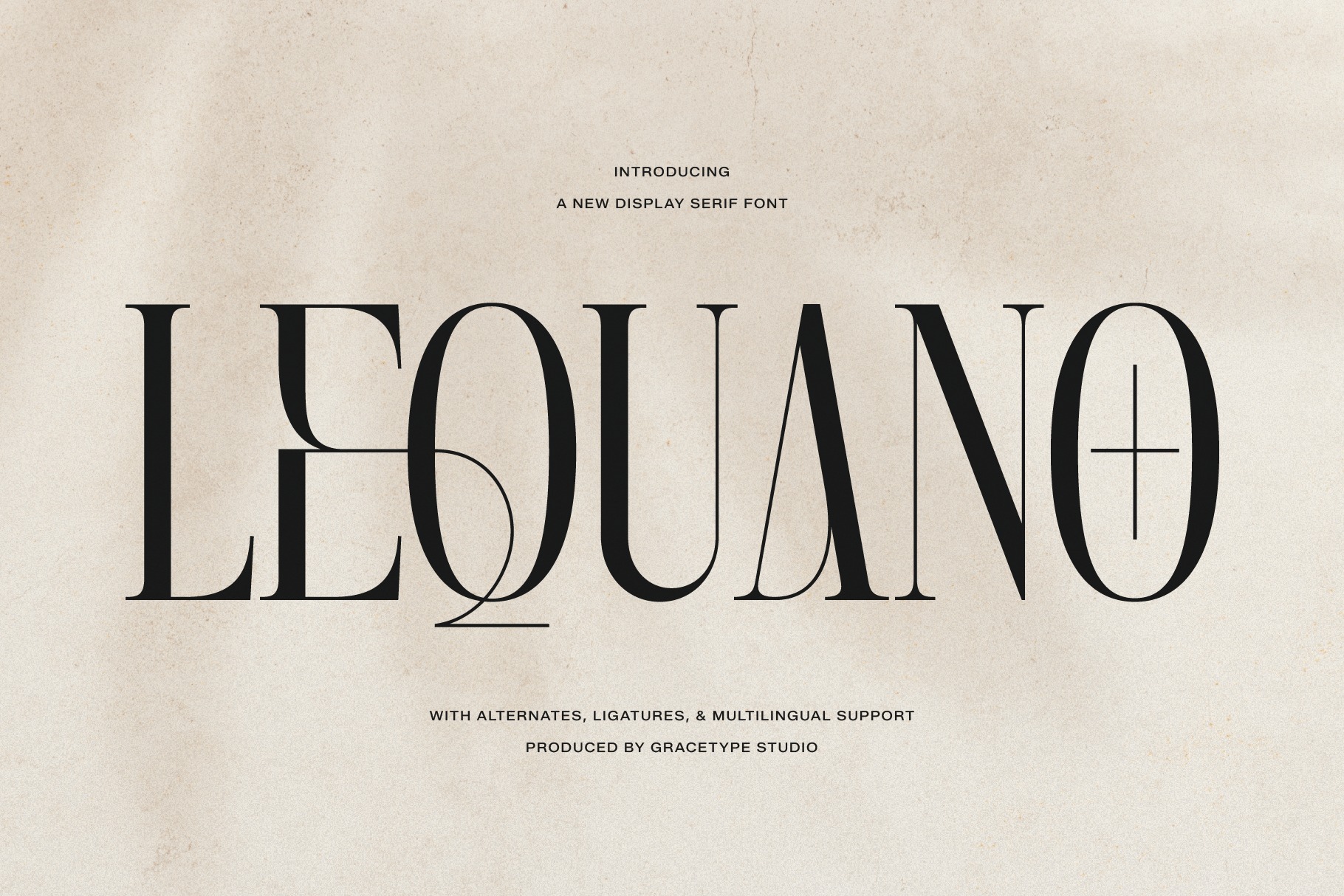
Lequano – Elegant Serif Font
Lequano – Elegant Serif Font is a professionally designed typeface that delivers clarity, structure, and consistent performance across various design applications. Lequano | New Display Serif, from Gracetypestudio, suitable for any projects such as: logos, branding projects, homeware designs, product packaging, mugs, quotes, posters, shopping bags, t-shirts, book covers, name card, invitation cards, greeting cards, label, photography, watermark, special events, and all your other lovely projects that need a Serif taste.
Standard glyphs
Alternate and Ligature
Fonts include multilingual support